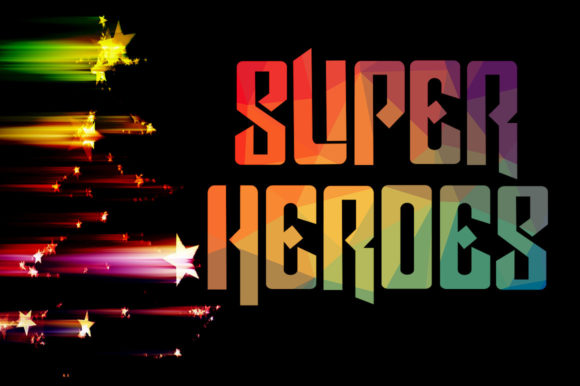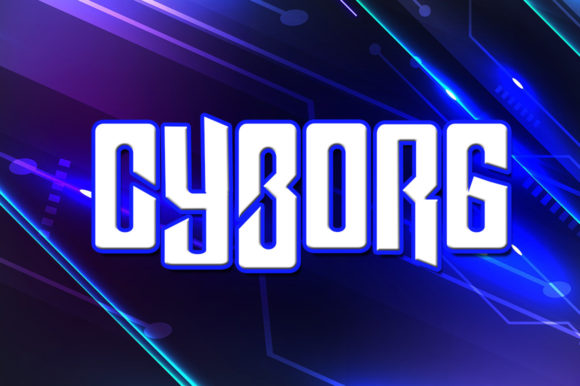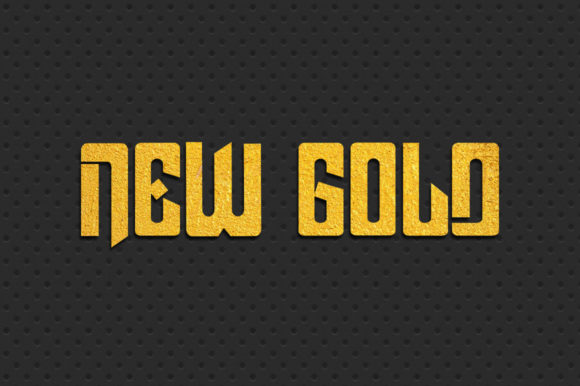
Introduction to Jump over Font
Jump Over is a bold, thick lettered and robotic display font.
This font is ideal for writing web designs, business cards, or pretty much anything else that requires a unique touch .
Key Features of Jump over Font